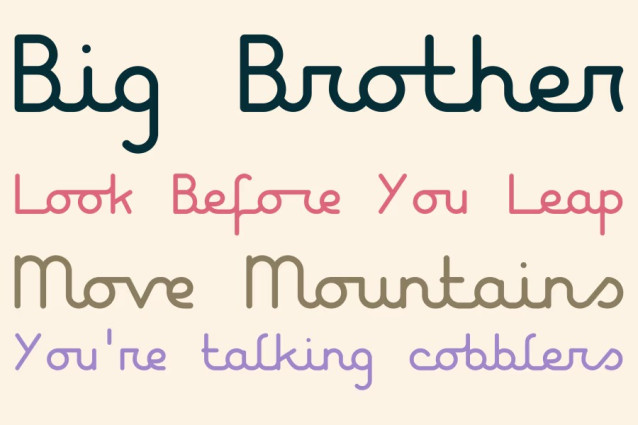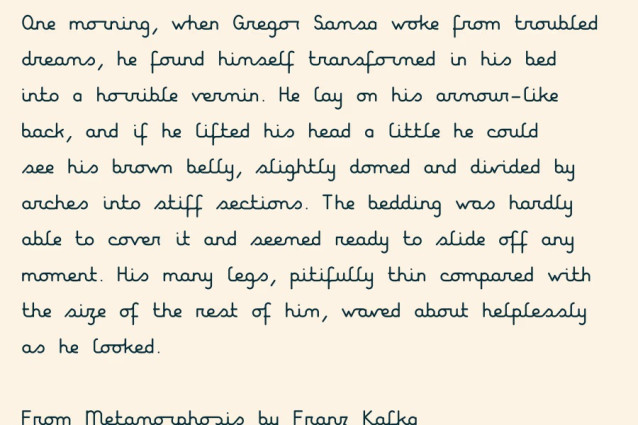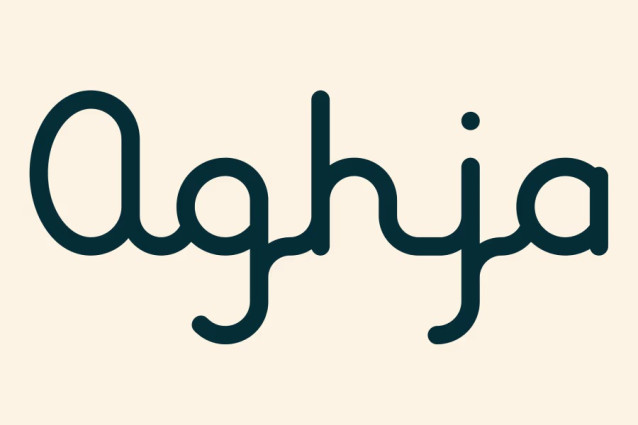
Aghja Script Font
Aghja Script Font is a minimalist Latin script typeface with a distinctly hand-drawn, cursive rhythm. Its most defining feature is the smooth connection between lowercase letters, which flow effortlessly across the baseline. The strokes are clean and understated, giving the font a casual, handwritten warmth without sacrificing legibility.
Designed as a technical showcase of the “Pecita Style” in its fifth version, Aghja integrates contextual alternates and smart glyph handling—making the text feel organic and varied. It’s ideal for creative projects that benefit from a personal touch: think branding, packaging, invitations, or artistic digital graphics.
Its name, Aghja, drawn from an old Corsican word meaning “rocky cleft” or “constructed space,” hints at the blend of natural movement and structural thought behind the design. The result is a script font that feels both spontaneous and thoughtfully engineered.